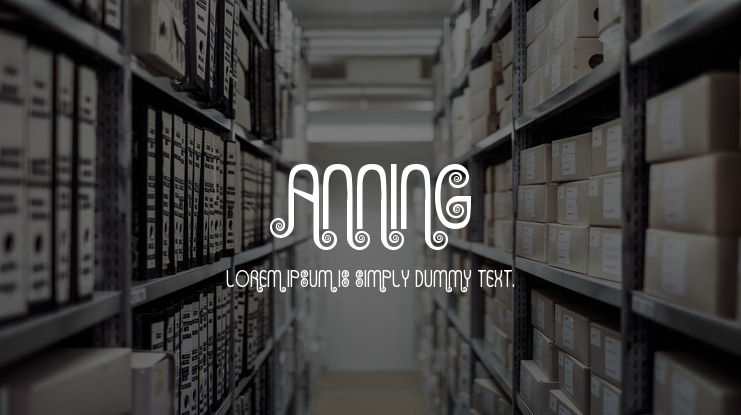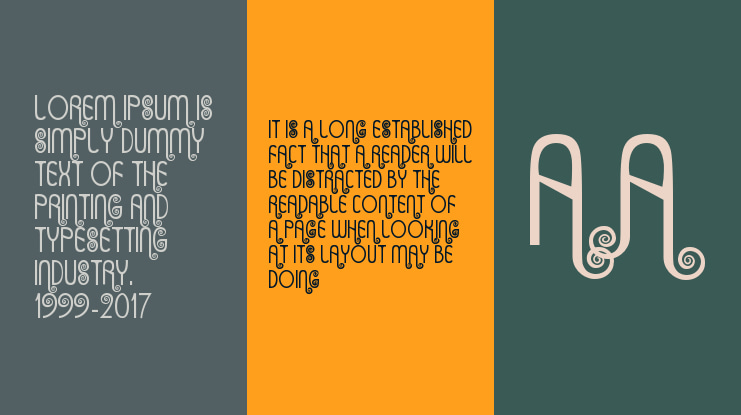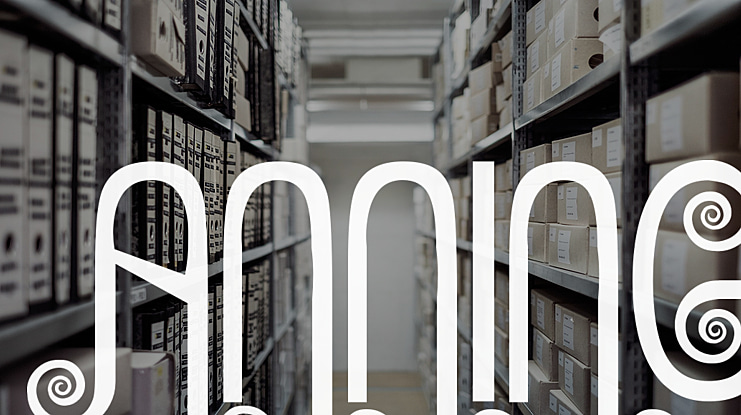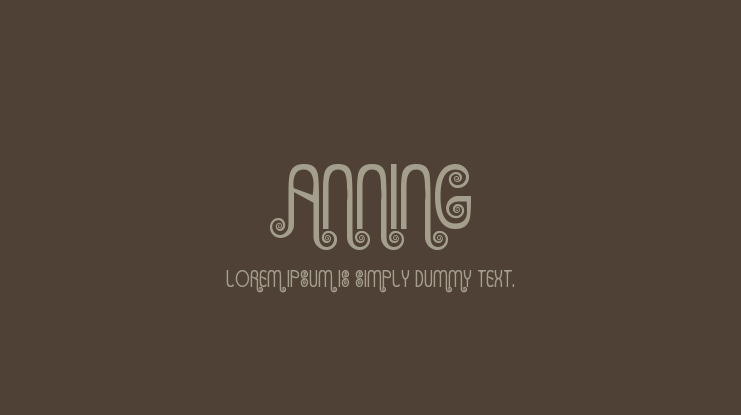
Anning Font
A display font inspired by the works of Charley Harper and the Art Nouveau style. Upper case letters should only be used at the beginning of words. Contact me at johnnykaje AT gmail DOT com if you wish to use it for commercial purposes.